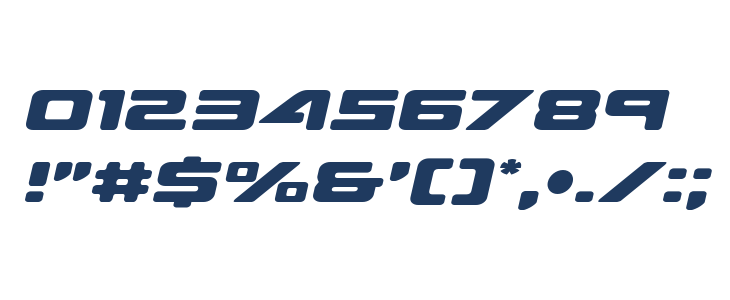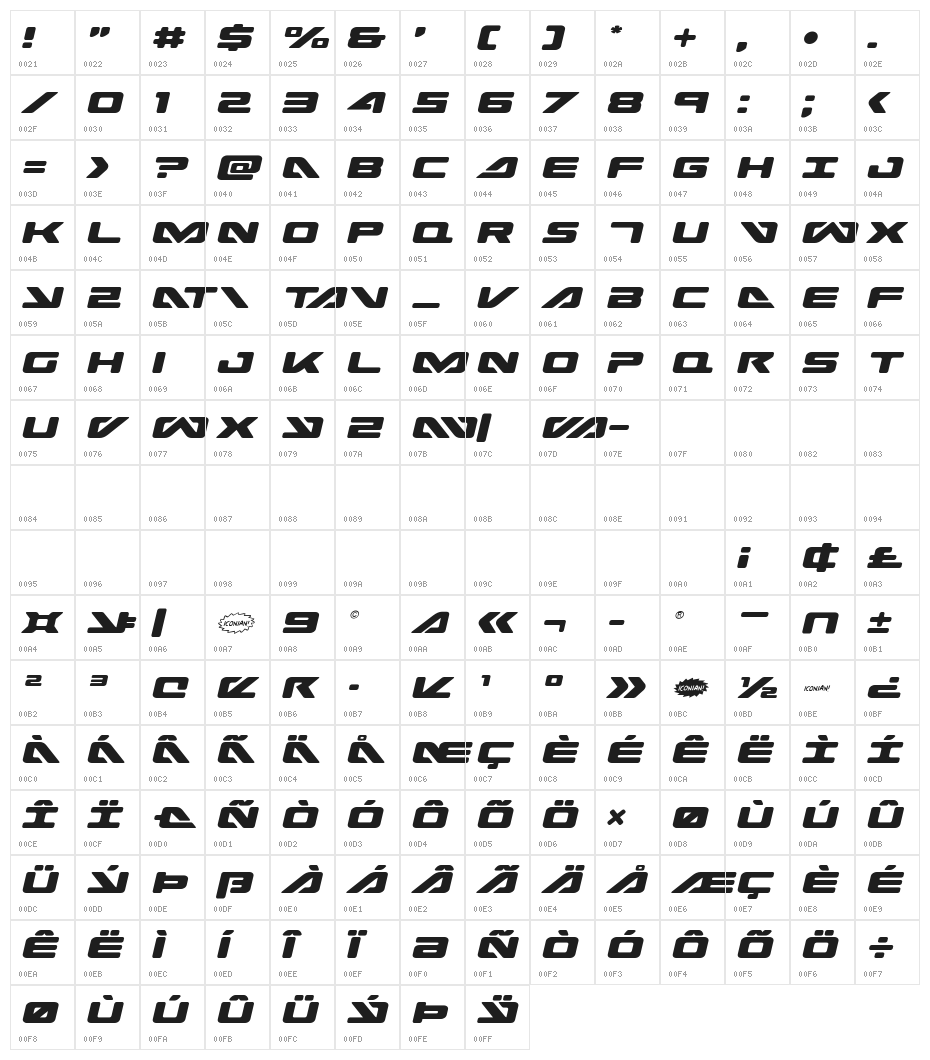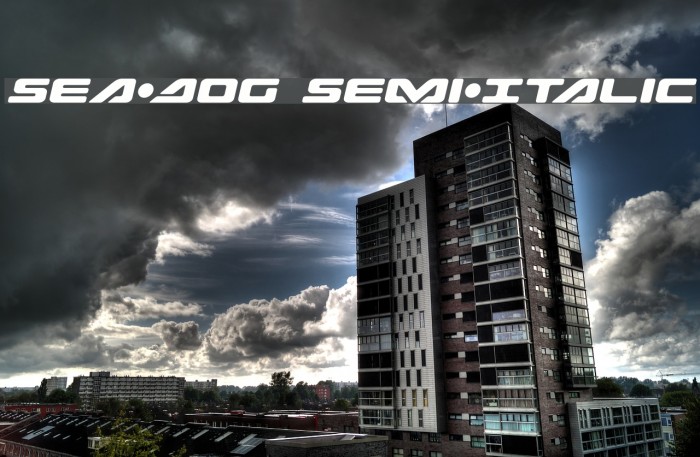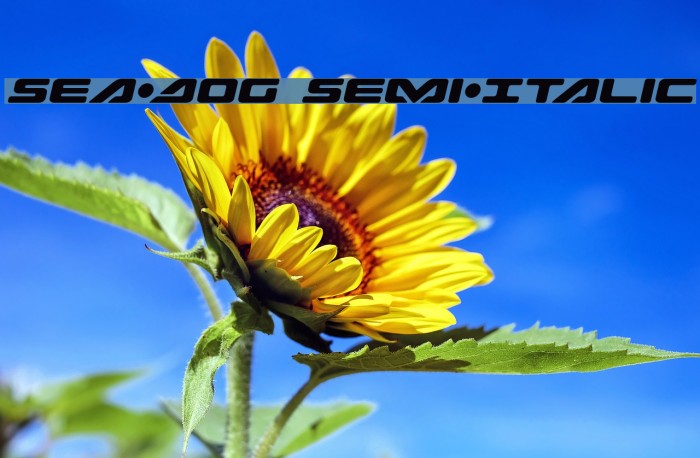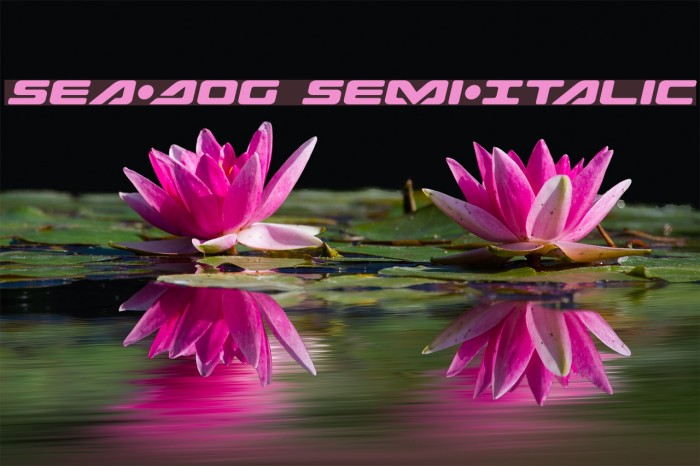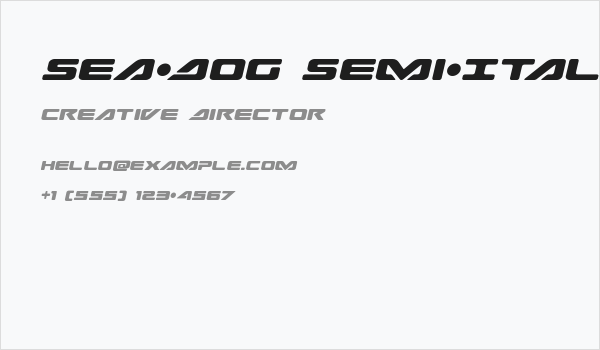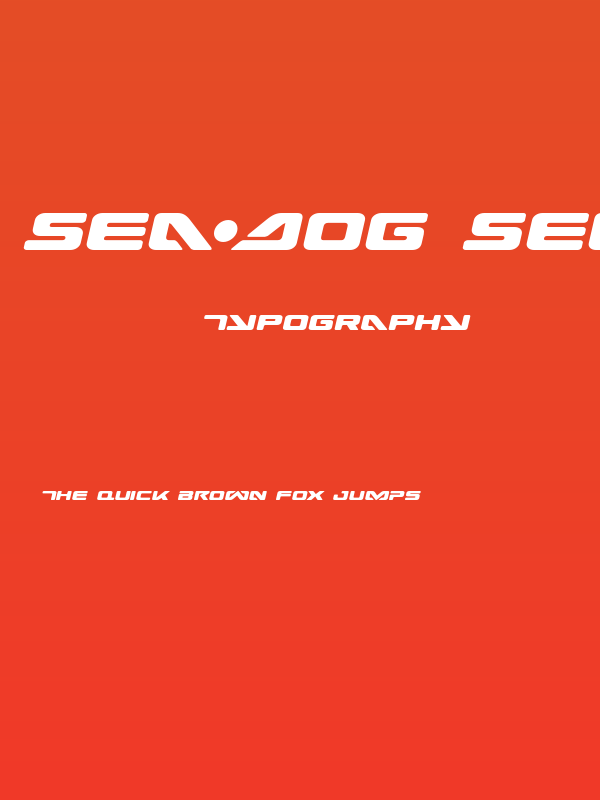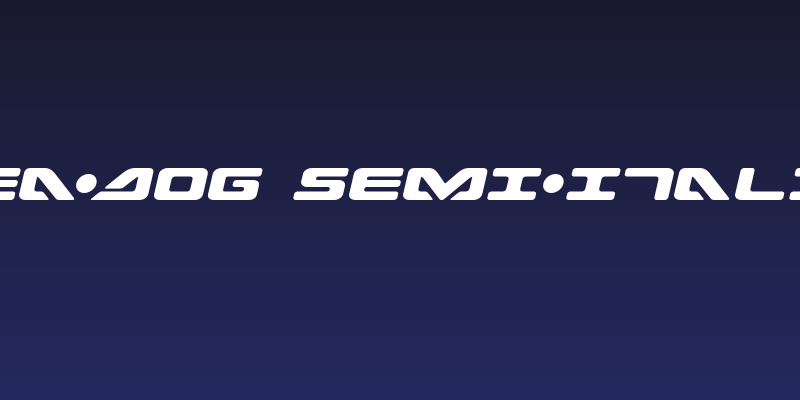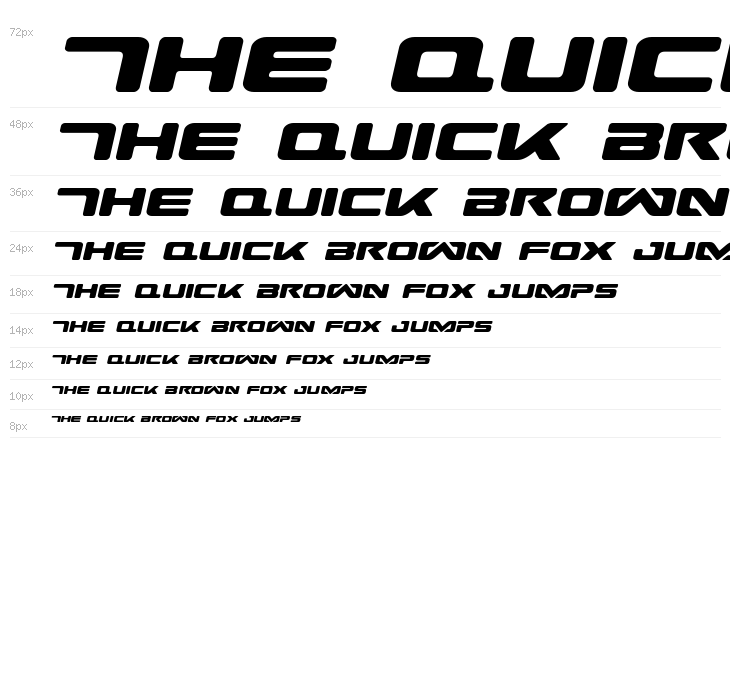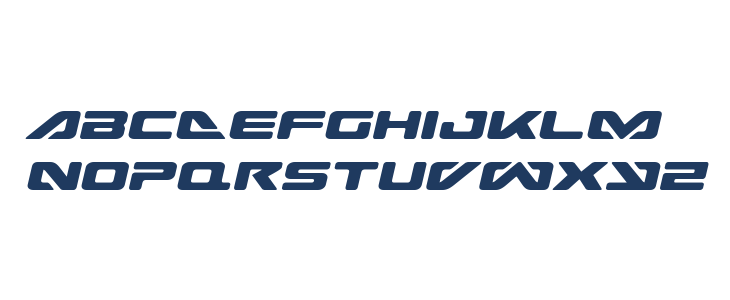
Sea-Dog Semi-Italic Font
Sea-Dog Semi-Italic Description
This font features a bold and dynamic design with a futuristic flair. The characters are slightly italicized, giving a sense of motion and speed. The strokes are thick and consistent, providing a strong visual impact. The geometric shapes and sharp angles contribute to its modern aesthetic, making it stand out in any design. The numbers and special characters maintain the same bold style, ensuring consistency across all elements. This font is ideal for projects that require a contemporary and edgy look.
| Proposed Projects | Ideal for sci-fi themed designs, video game titles, tech branding, and modern posters. |